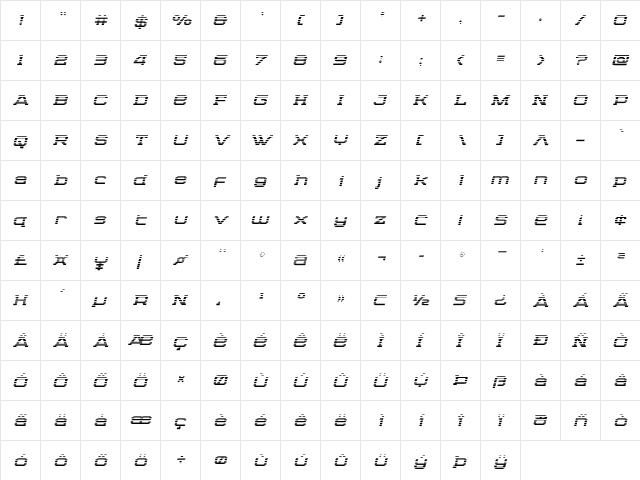
Cydonia Century Gradient Italic Italic
Design Context for Cydonia Century Gradient Italic Typeface
Cydonia Century Gradient Italic offers clean, dependable letterforms without strong stylistic allegiance, making it a practical choice for designers who need flexibility. The slanted form adds forward momentum and visual energy.
Pro Tip: Use Cydonia Century Gradient Italic for emphasis, pull quotes, and subheadings where its slanted energy can add rhythm to the layout.